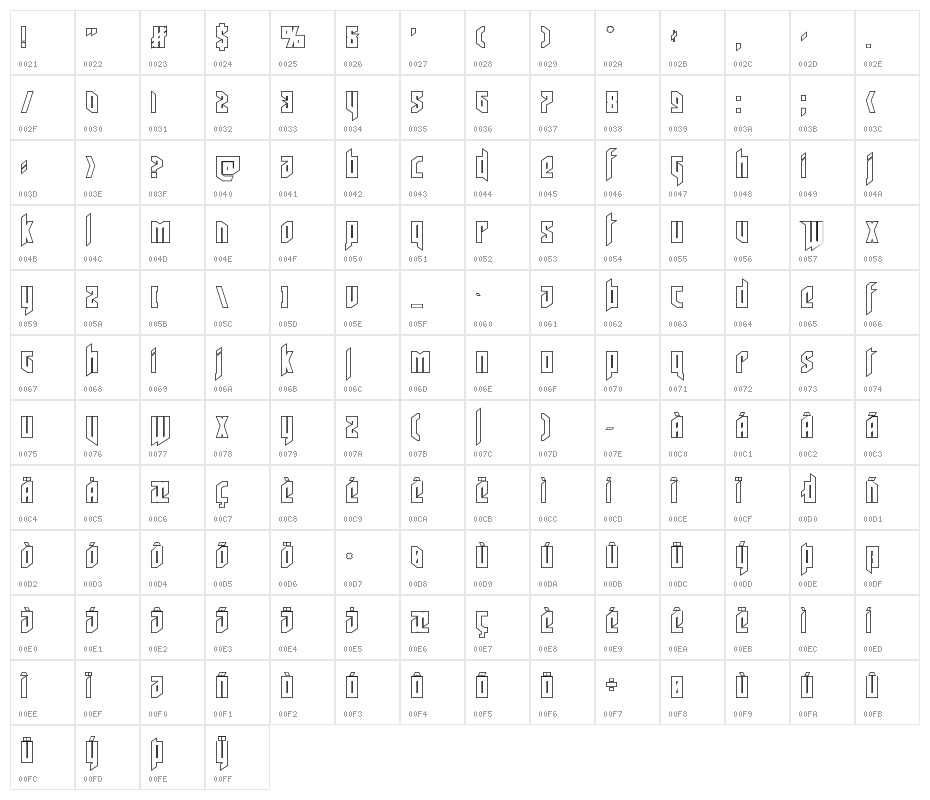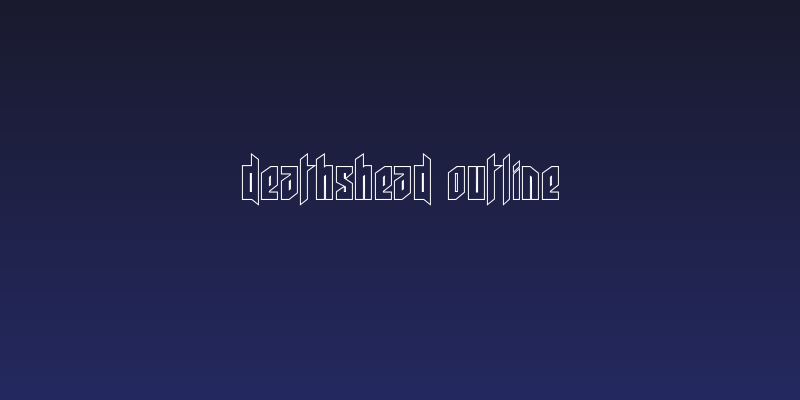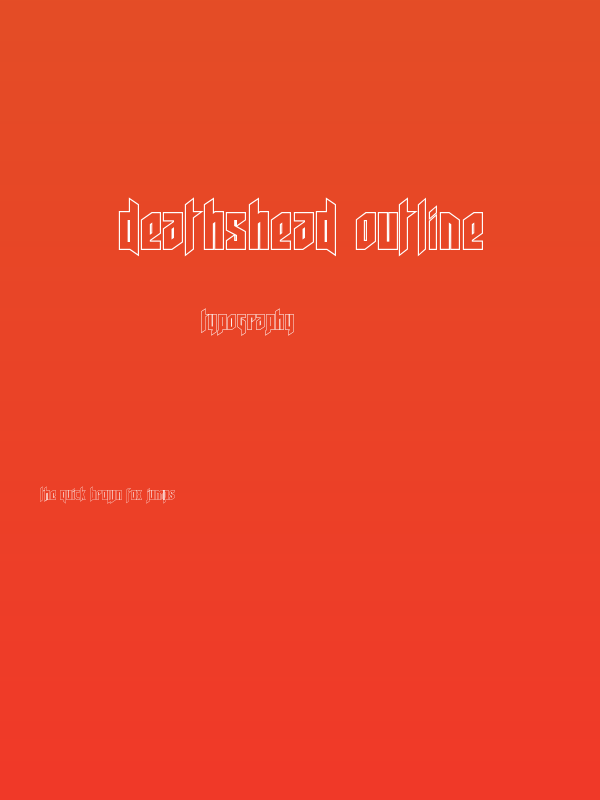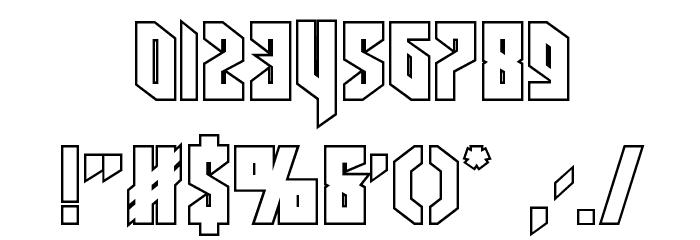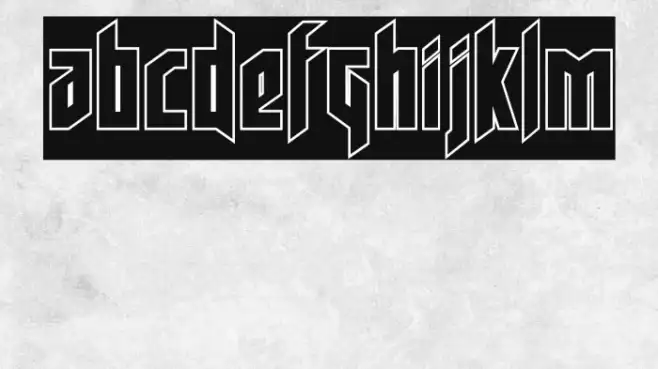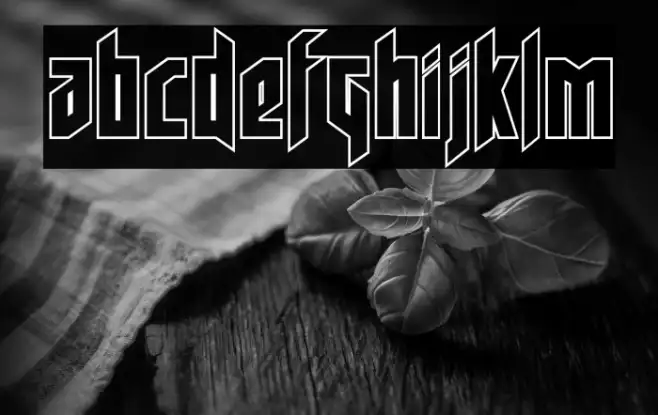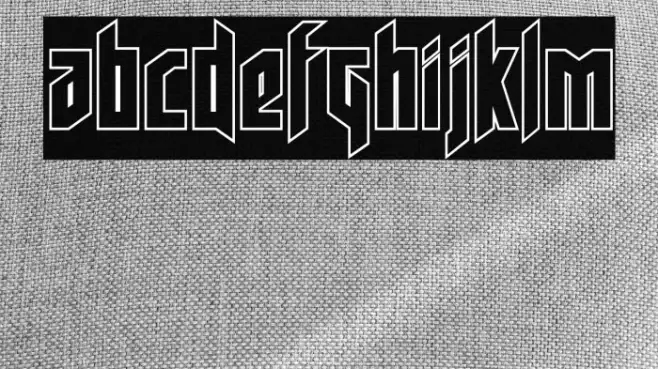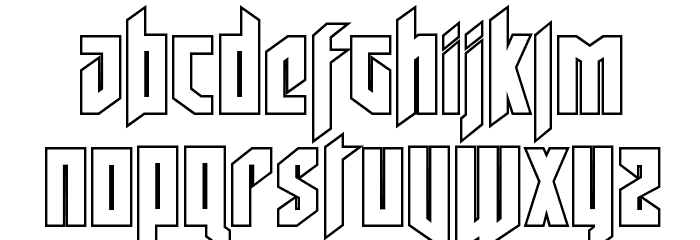
Deathshead Outline Font
Deathshead Outline Description
This font features a bold, angular design with sharp edges and a distinct outline style. The characters are highly stylized, resembling a modern take on gothic or blackletter typography. Each letter is outlined, giving it a three-dimensional appearance that stands out against any background. The uppercase and lowercase letters maintain a consistent height, while the numbers and special characters follow the same angular theme. This font's unique style makes it ideal for attention-grabbing designs.
| Overall Style | Modern, Gothic |
| Proposed Projects | Ideal for posters, album covers, video game titles, and any project requiring a striking, edgy aesthetic. |